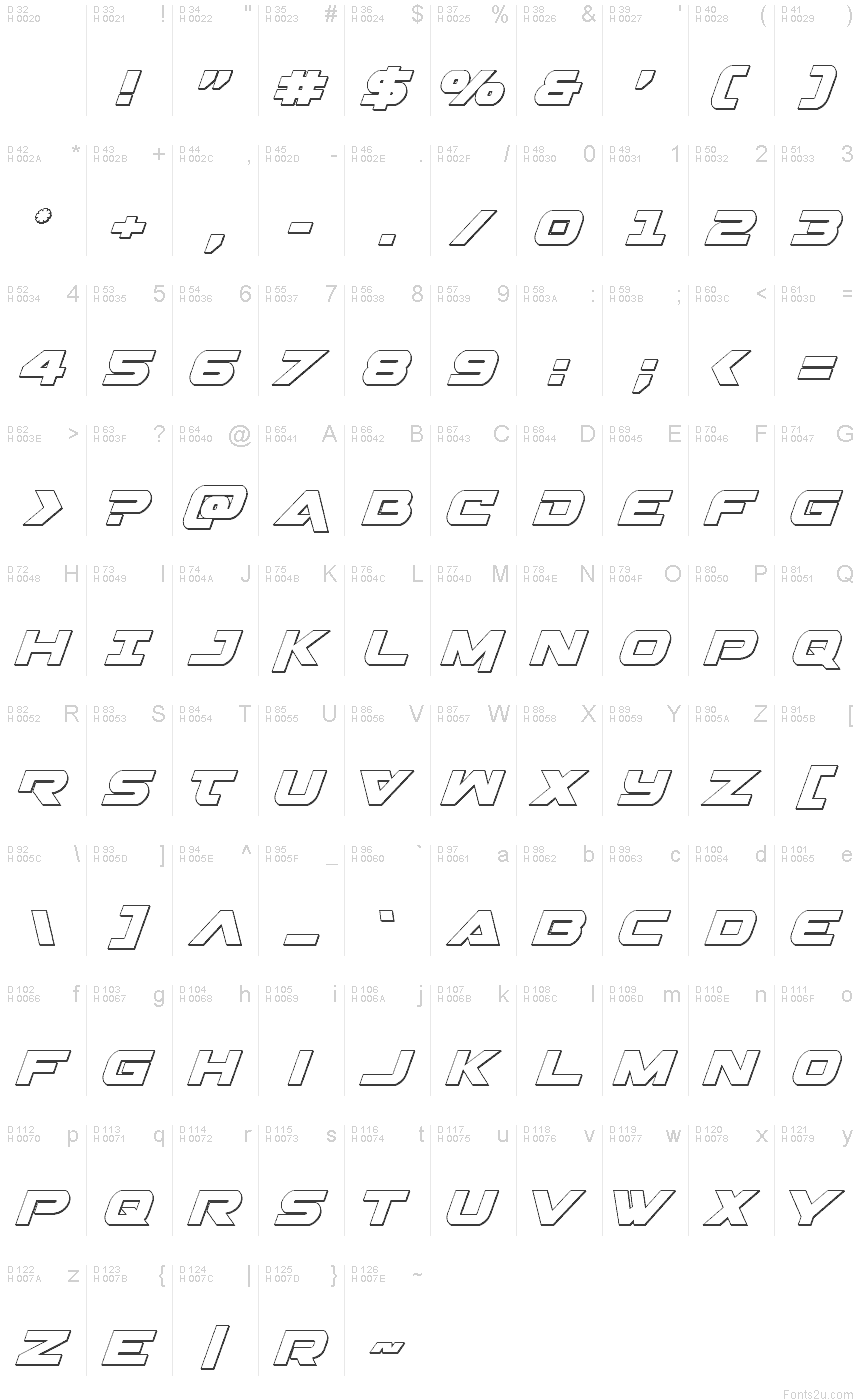
Gemina 3D Italic by Daniel Zadorozny of Iconian Fonts is a free futuristic sans serif with broad, forward-leaning capitals and a crisp outlined build. Sharp cuts and open joins give the lettering a fast, engineered profile.
Merchandise fits its sports-tech styling, especially racing shirts and team graphics. It also suits game interfaces and event posters about speed or competition. Hollow interiors can echo track lines, vehicle panels, and angular interface graphics, making the type part of the imagery.